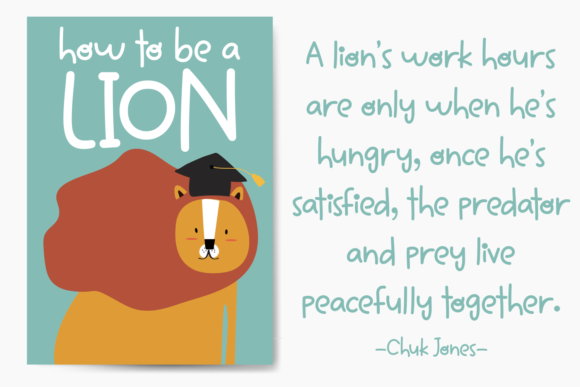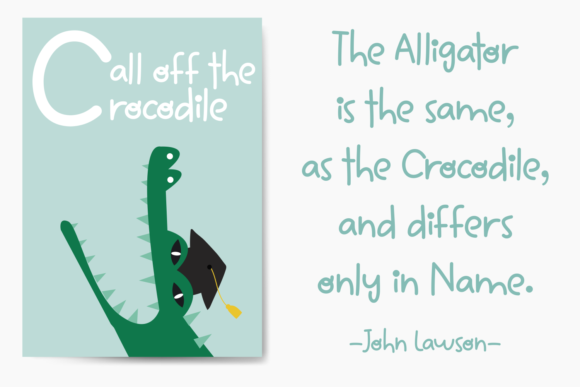
Cliver Font
db-ku.com - Script & Handwritten -- Cliver is an inviting and fun handwritten font that embodies playfulness in every character. Beautifully rounded and easy to read, this typeface is definitely a must-have!